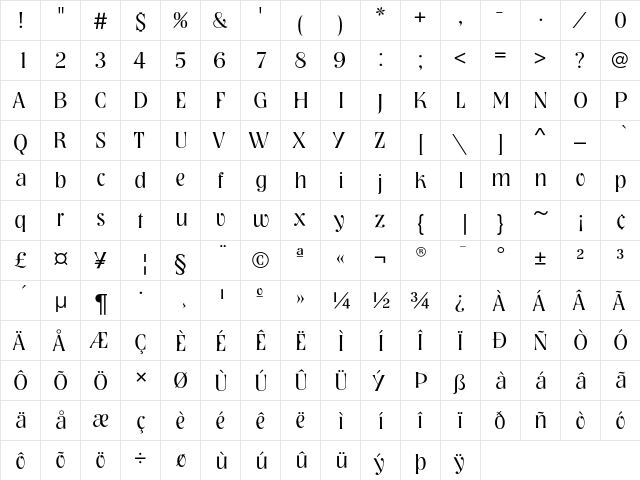
NashvilleEF Light Font Preview
NashvilleEF Light
Design Context for NashvilleEF Typeface
NashvilleEF takes a measured approach to typography — its balanced proportions and neutral character make it a reliable workhorse for both digital and print work. Its slender proportions lend an understated elegance to any composition.